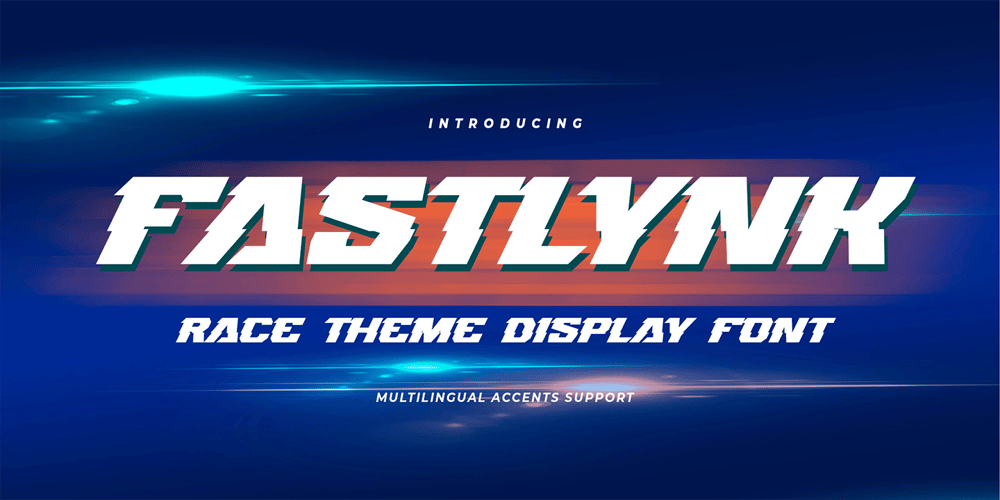
Fastlynk
Fastlynk font
Fastlynk Font Family was designed by Abdul Malik Wisnu, Anang Fibriyanto and published by Gassstype. Fastlynk contains 1 styles and family package options. Here comes a New Font,Introducing FASTLYNK is a Race Theme Display Font.This Handmade Display Font with a stylish touch inspired by the famous minimalist logo FASTLYNK has is perfect for the purposes of designing templates, brochures, videos, advertising branding, logos and more.That is Sport Display with strong and Sport nuances.This font is great for your next creative project such as logos, printed quotes, invitations, cards, product packaging, headers, Logotype, Letterhead, Poster, Label, and etc.Crafted manually with love and passion.